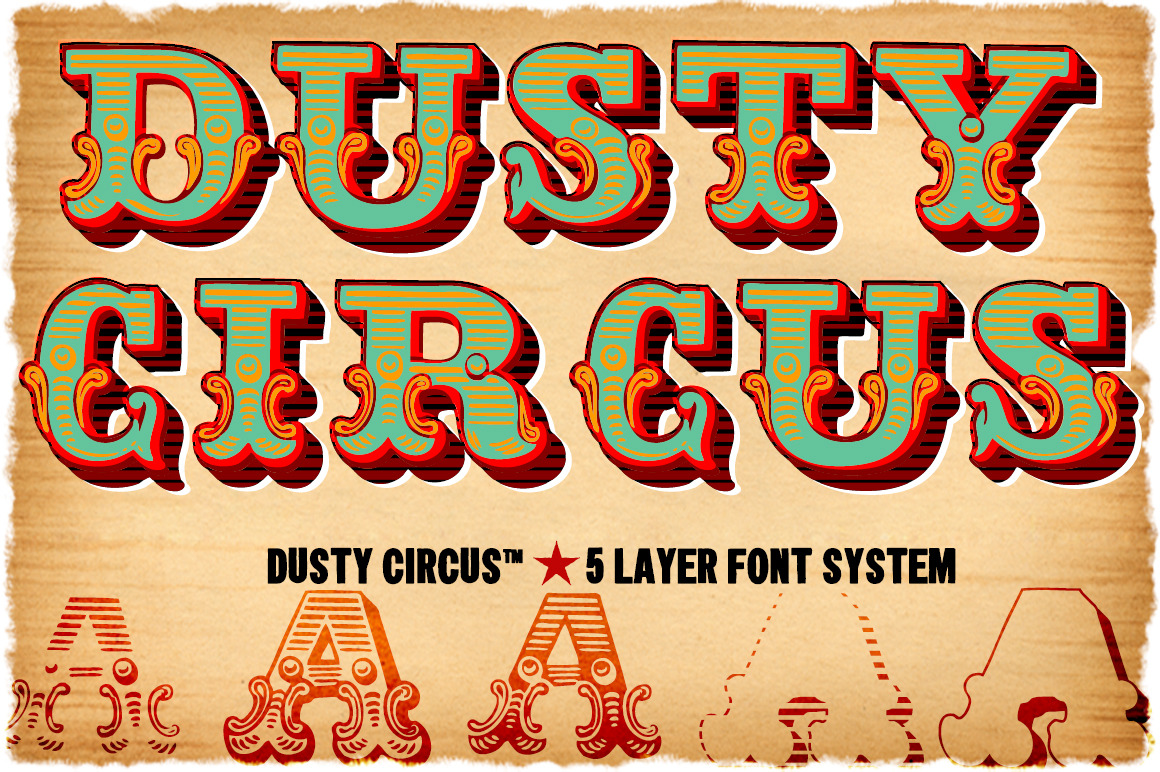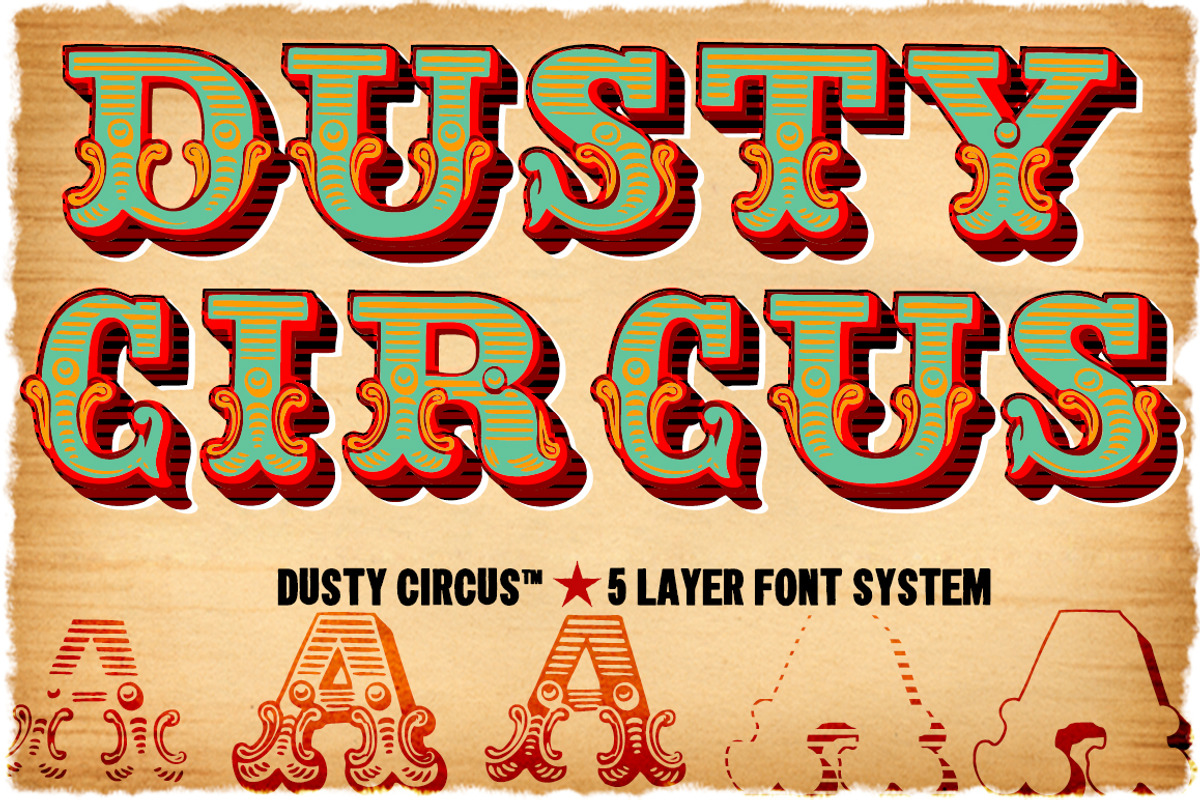
Dusty Circus™ 5 Layer Font System
Dusty Circus™ is a five layer stacking display face designed to be infinitely morphed. The metrics are set identically in the individual and family set, to provide for typographic ease (although we seem to prefer an offset appearance). Great for a vintage western feel or a modern aesthetic.
In addition, note that it is very easy to omit a layer and add multiple copies of other layers to produce a 3D bevel on the fly, or inline styles with flair and substance.